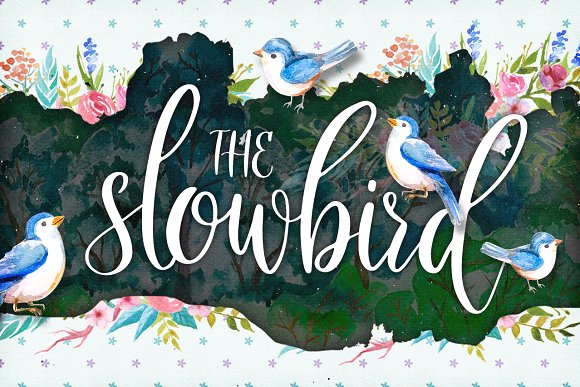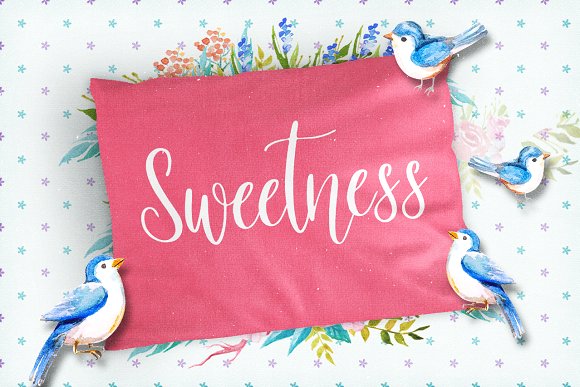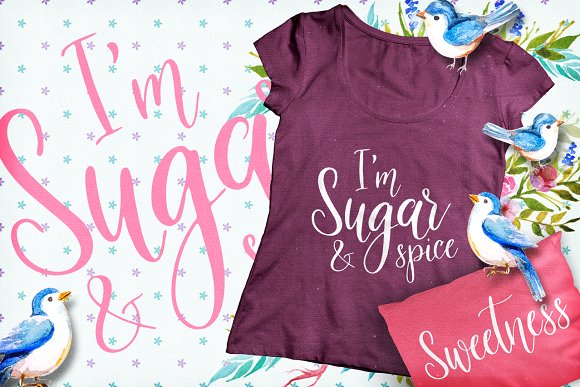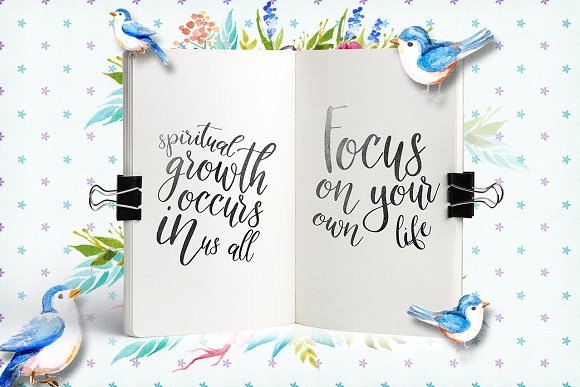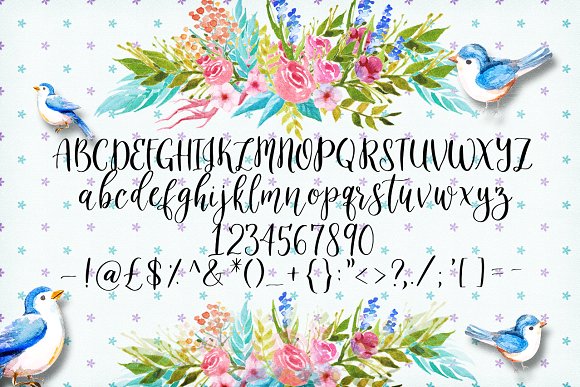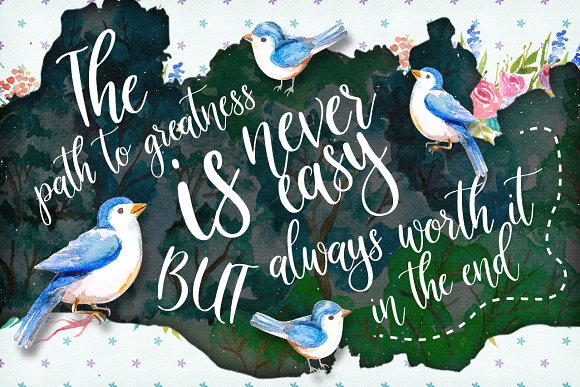
The Slowbird – Typeface
Introducing Slowbird!
Slowbird is our cute Script Font that is perfect for headline pieces, covers, and much more! Each Glyph has been crafted to perfection so that you can add some special typography to your next piece of design work!